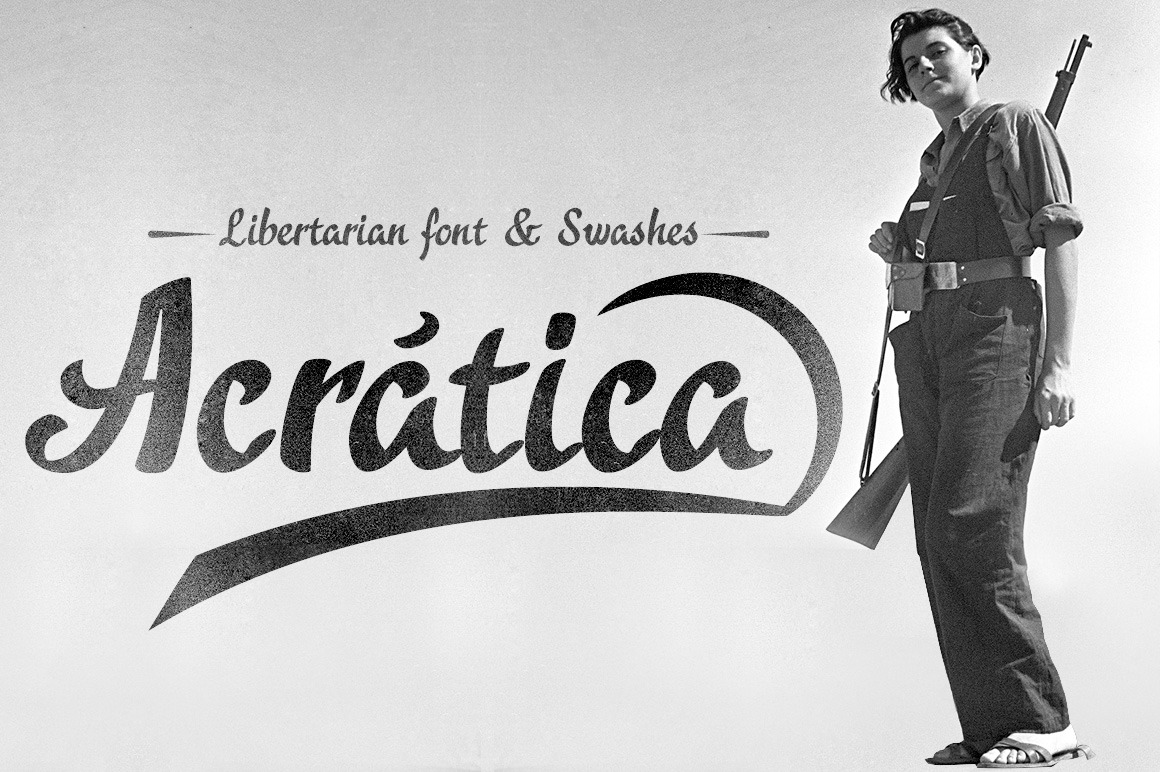
Acratica font
Acrática is a handwritten typography of calligraphic style and has several sets of ornaments and terminal swashes for decoration of phrases and titles, is dedicated to all libertarians of the world.
- OpenType Functions: Superiors, Discretionary Ligatures, Denominators, All Alternates, Additional languages, Ornaments, Fractions, Terminal Forms, Swash, Superscript, Historical Forms, Superior letters, Subscript, Standard Ligatures, Slashed Zero, Extended Fractions, Scientific Inferiors, Ordinals, Oldstyle Figures, Numerators, Numbers Small Caps, Localized Forms, Kerning, Inferiors.
- Bitcoin symbol: b# (ligatures)